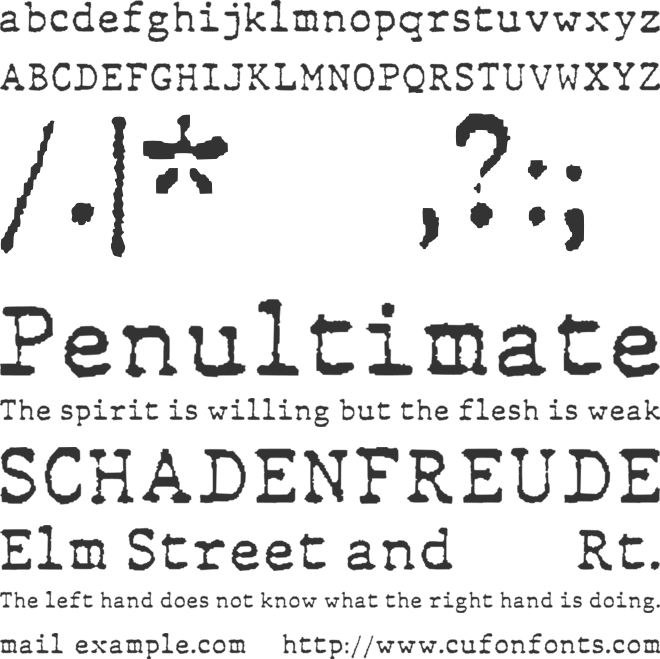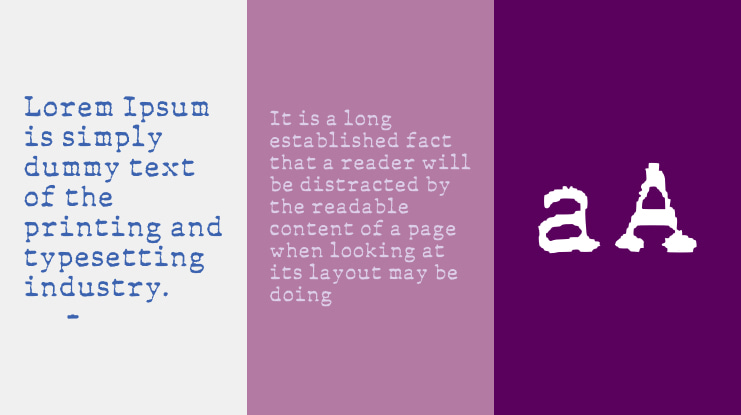
BladeRunnerScreenPlay Font
Blade Runner screenplay font © is a revival of a defunct, obsolete, (and unknown) 1980s typewriter font made by Gary Stephens------------------------------------------------------NOTE: This PARTIAL-DEMO font is free for PERSONAL USE ONLY! FULL VERSION can be found here:https://bladerunnerfont.carrd.co/I really hope you like the font. I use it myself for ResearchGate and other projects. Other great fonts https://arcanefonts.carrd.co/Support me : Paypal account for donation : https://paypal.me/gstephens369You have a question: Gary Stephens :  :) Arcanefonts.